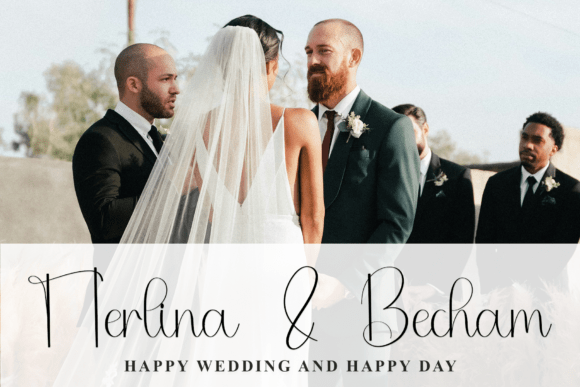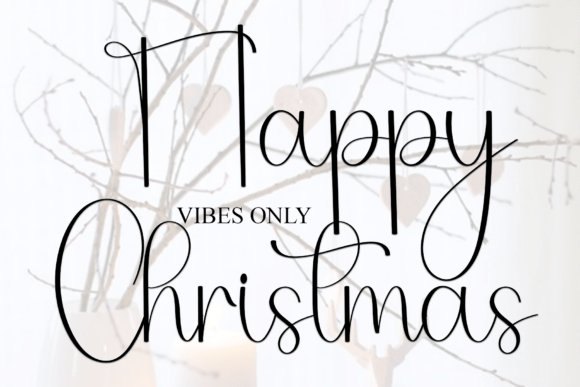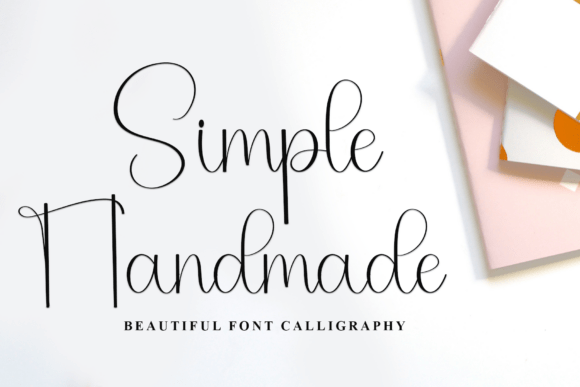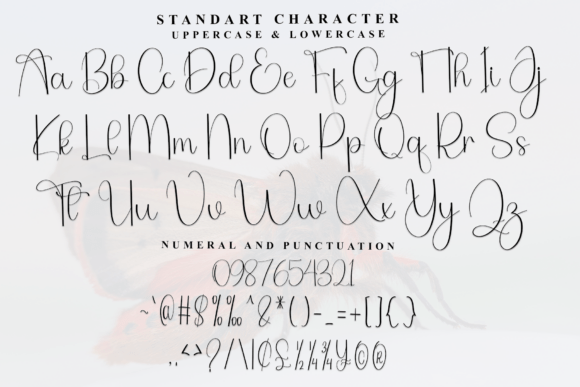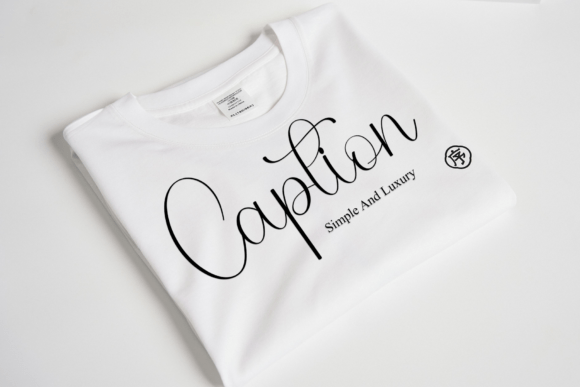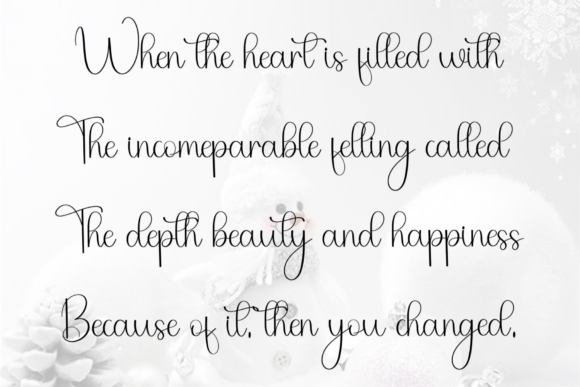
Introduction to Husband Soulmate Font
Husband Soulmate is a casual and creative font that exudes warmth and friendliness.
Key Features of Husband Soulmate Font
Why Choose Husband Soulmate Font?
Husband Soulmate Font offers exceptional quality and versatility, making it a valuable addition to your design toolkit. Whether you’re creating for personal projects or commercial use, Husband Soulmate Font delivers professional results.